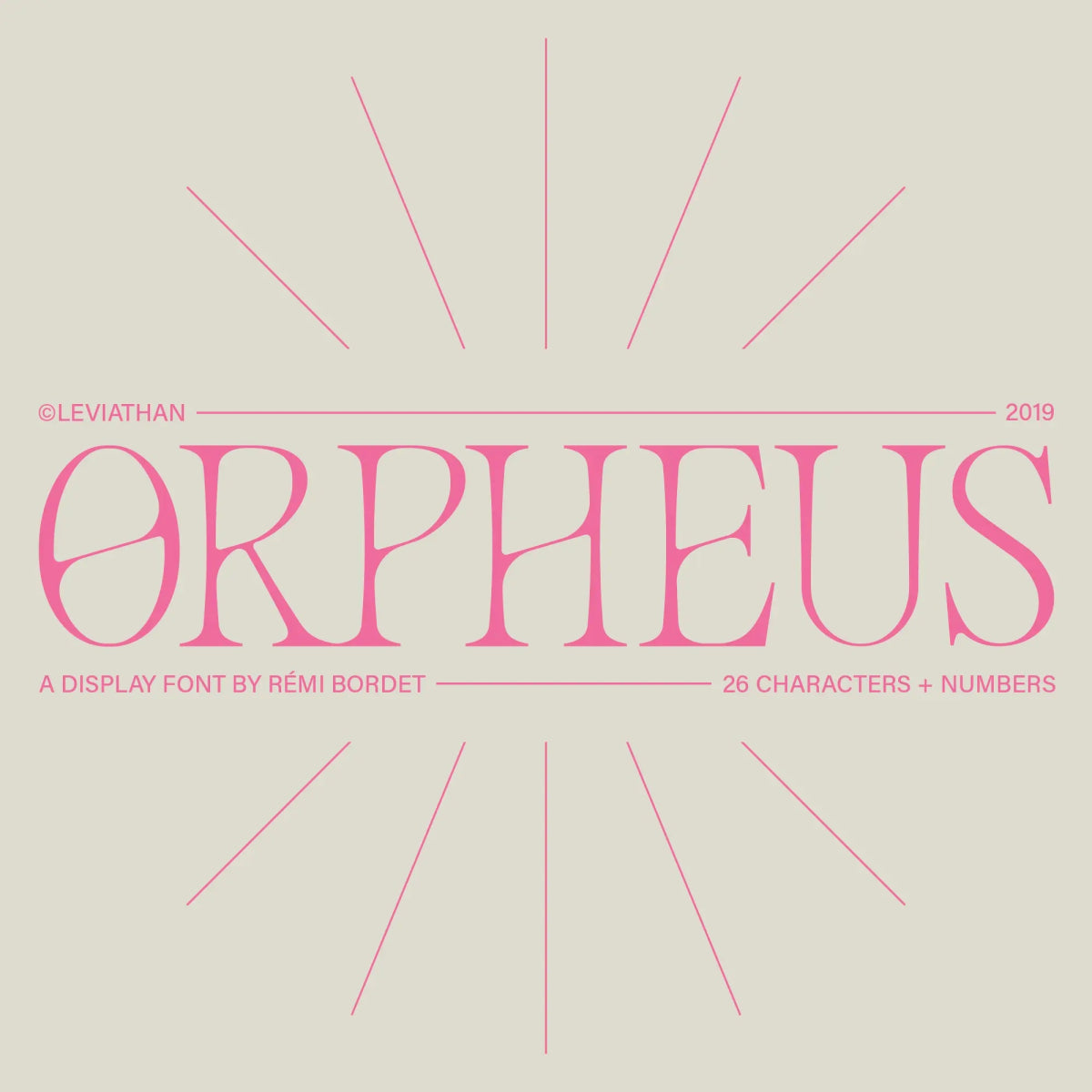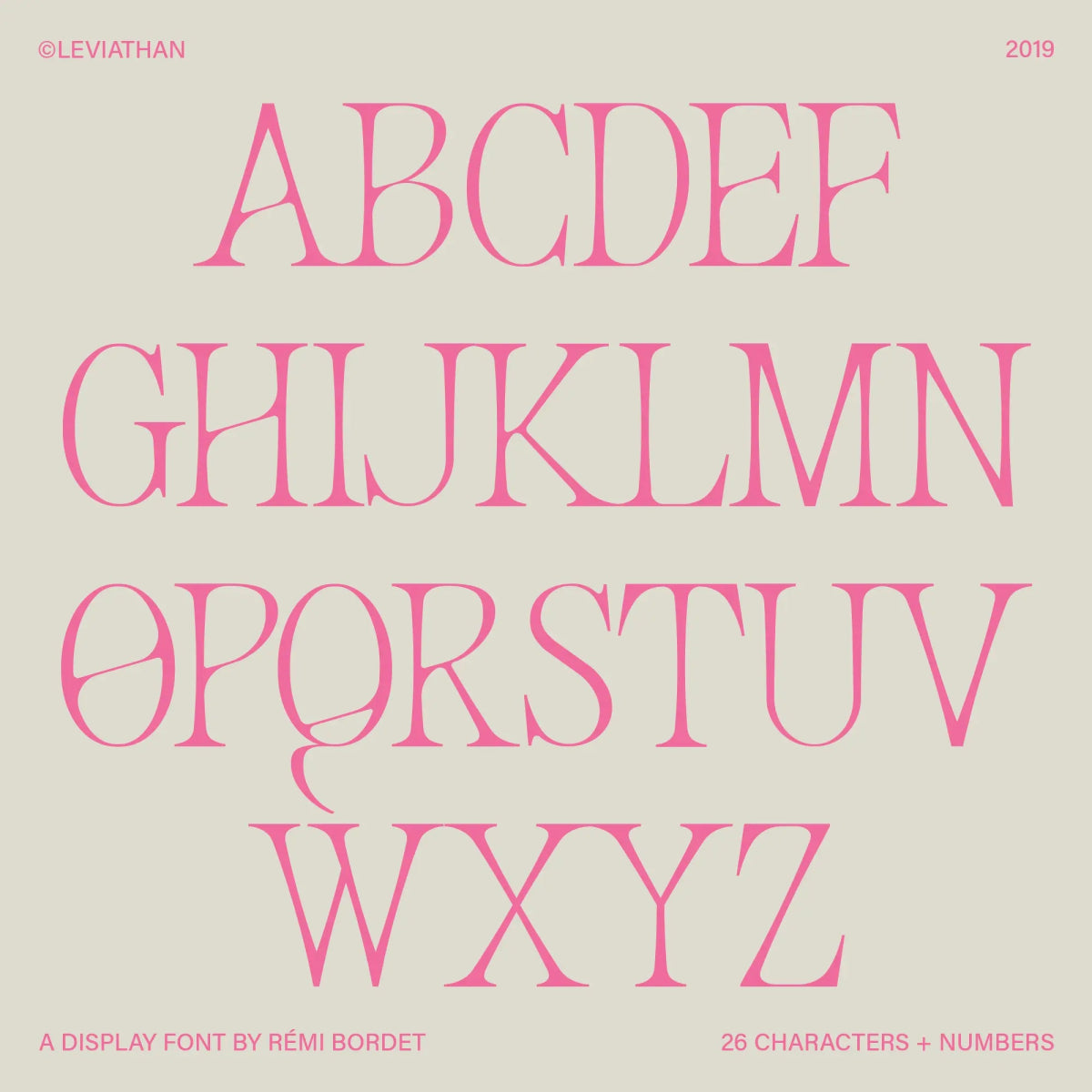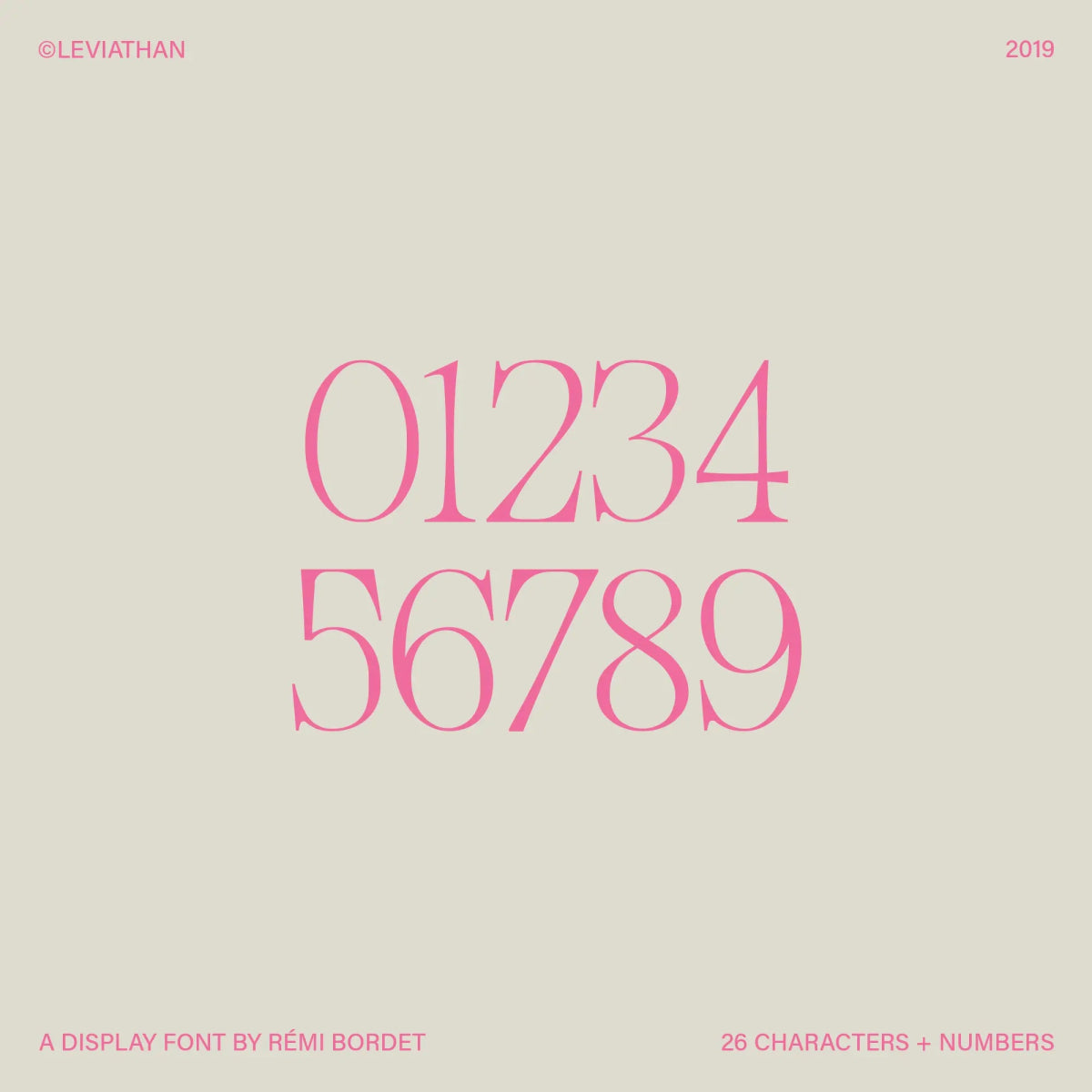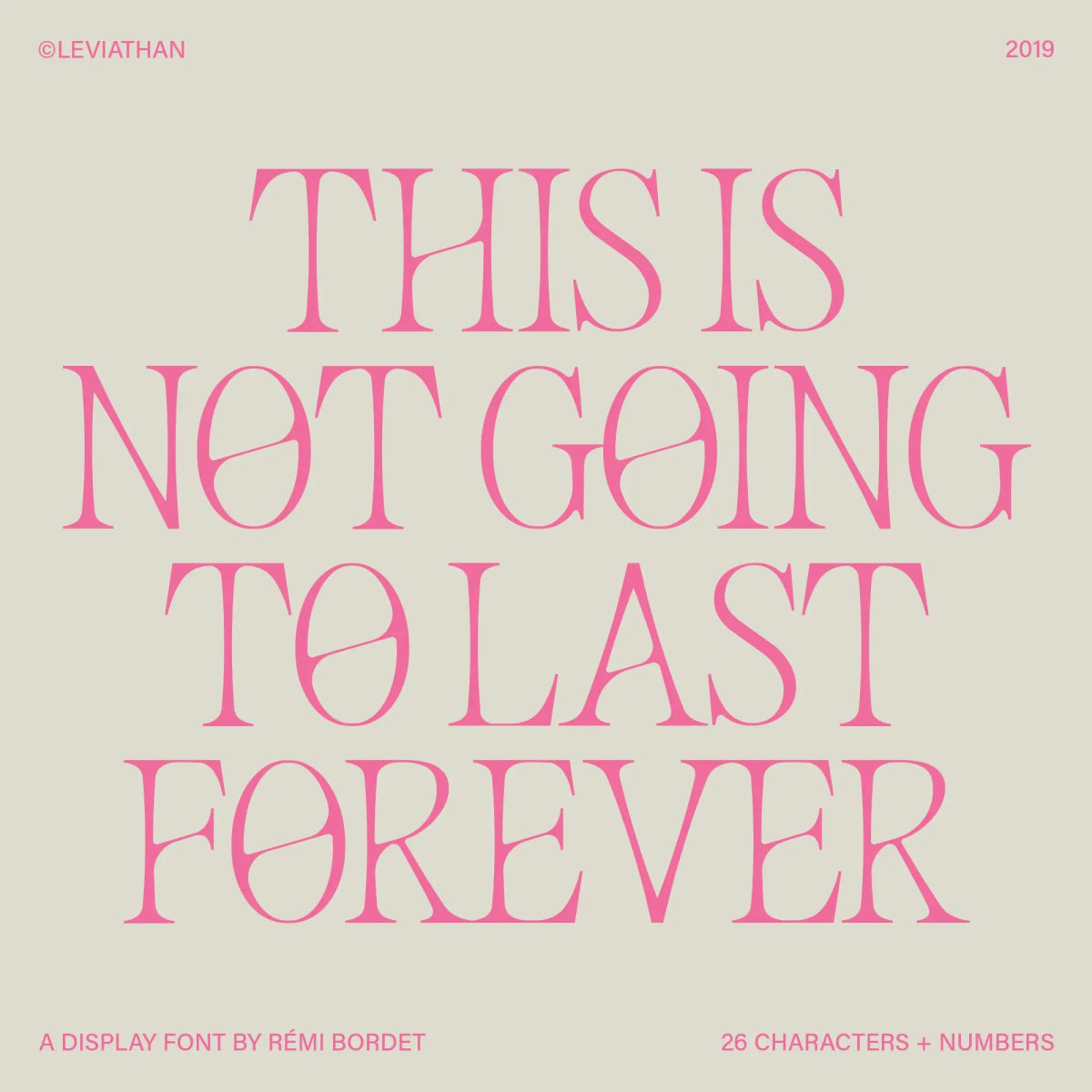
Orpheus Display Font
by Rémi Bordet
Orpheus is a graceful serif display font that blends classical elegance with subtle modern twists. Featuring high-contrast strokes and sculptural curves, it’s ideal for fashion branding, editorial layouts, music artwork, and poetic titles.
Font Features
• Full uppercase A-Z alphabet
• Full set of numbers 0-9
Rémi Bordet
Rémi Bordet is a french graphic and type designer and artist who creates bold, minimalist posters combining impactful imagery and typography. His work highlights contradictions, both aesthetically and symbolically speaking, through stylistic visual metaphors that blend brutalist aesthetics with emotional depth.